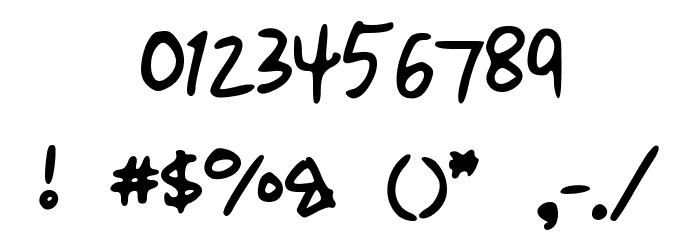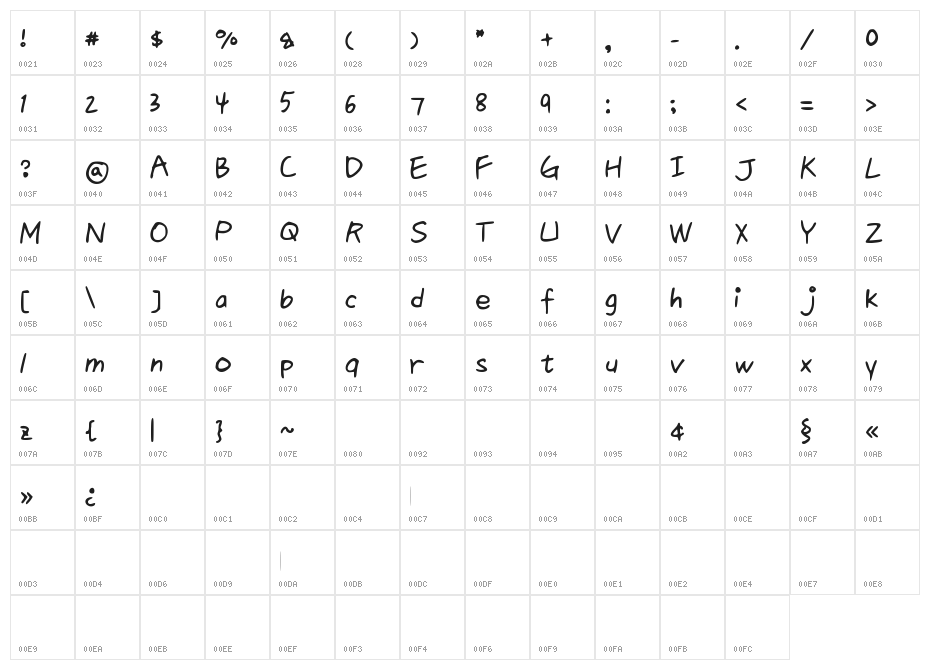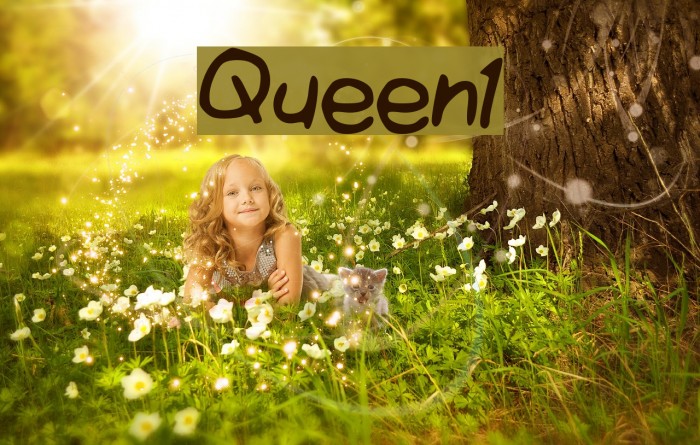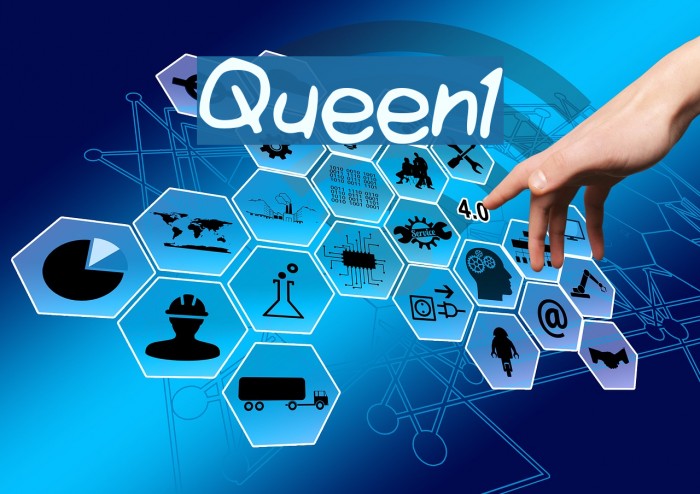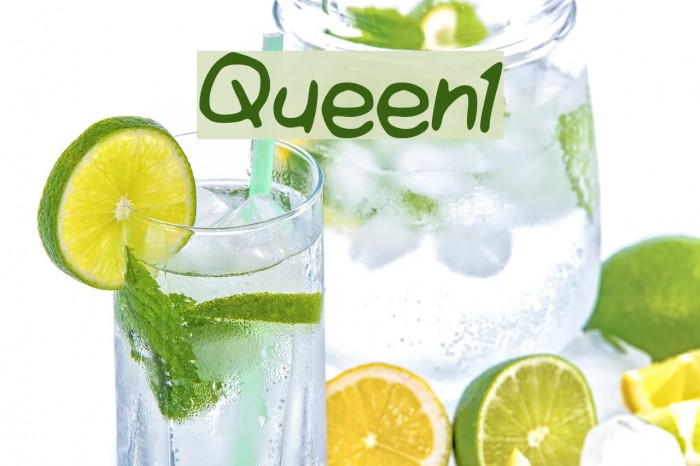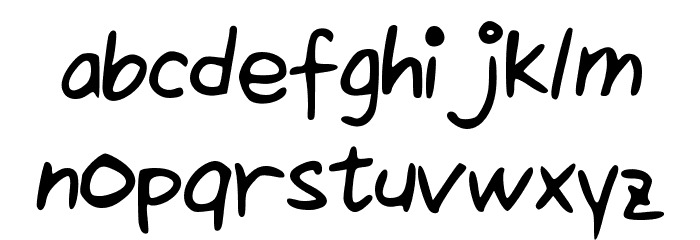
Queen1 Font
Queen1 Description
This font features a playful and casual handwritten style, characterized by its smooth, flowing lines and slightly irregular shapes. The letters are rounded and have a consistent stroke width, giving it a friendly and approachable appearance. The uppercase and lowercase letters maintain a uniform height, while the numerals and special characters blend seamlessly with the overall design. This font's informal aesthetic makes it ideal for projects that require a personal touch or a relaxed vibe.
Overall StyleCasual
Use CaseHeadlines, Informal text, Personal projects
Proposed ProjectsIdeal for greeting cards, children's books, personal blogs, and informal branding projects.